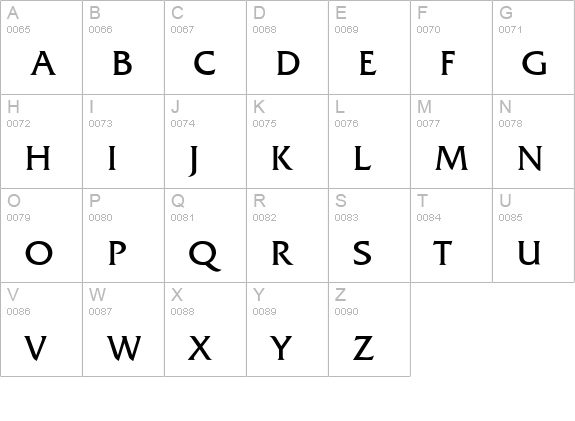
Muster Light SSi Light is a refined, elegant variant in the Muster typeface family \xE2\x80\x94 well suited to elegant body text, refined sub-headings, and luxury branding.
Muster Light SSi Light font is a modern and stylish typeface that exudes elegance and sophistication. Its sleek lines and clean design make it perfect for a wide range of design projects, from branding to editorial layouts. The light weight of the font adds a delicate touch to any text, making it ideal for conveying a sense of refinement and subtlety. What sets Muster Light SSi Light font apart is that it is available for free download at FontsMarket.com. This means that you can easily access this high-quality font without any cost, making it a valuable addition to your font library. Whether you are a designer, a student, or a hobbyist, Muster Light SSi Light font offers a versatile and professional option for your creative endeavors. Download it today and elevate your designs with this exquisite typeface.